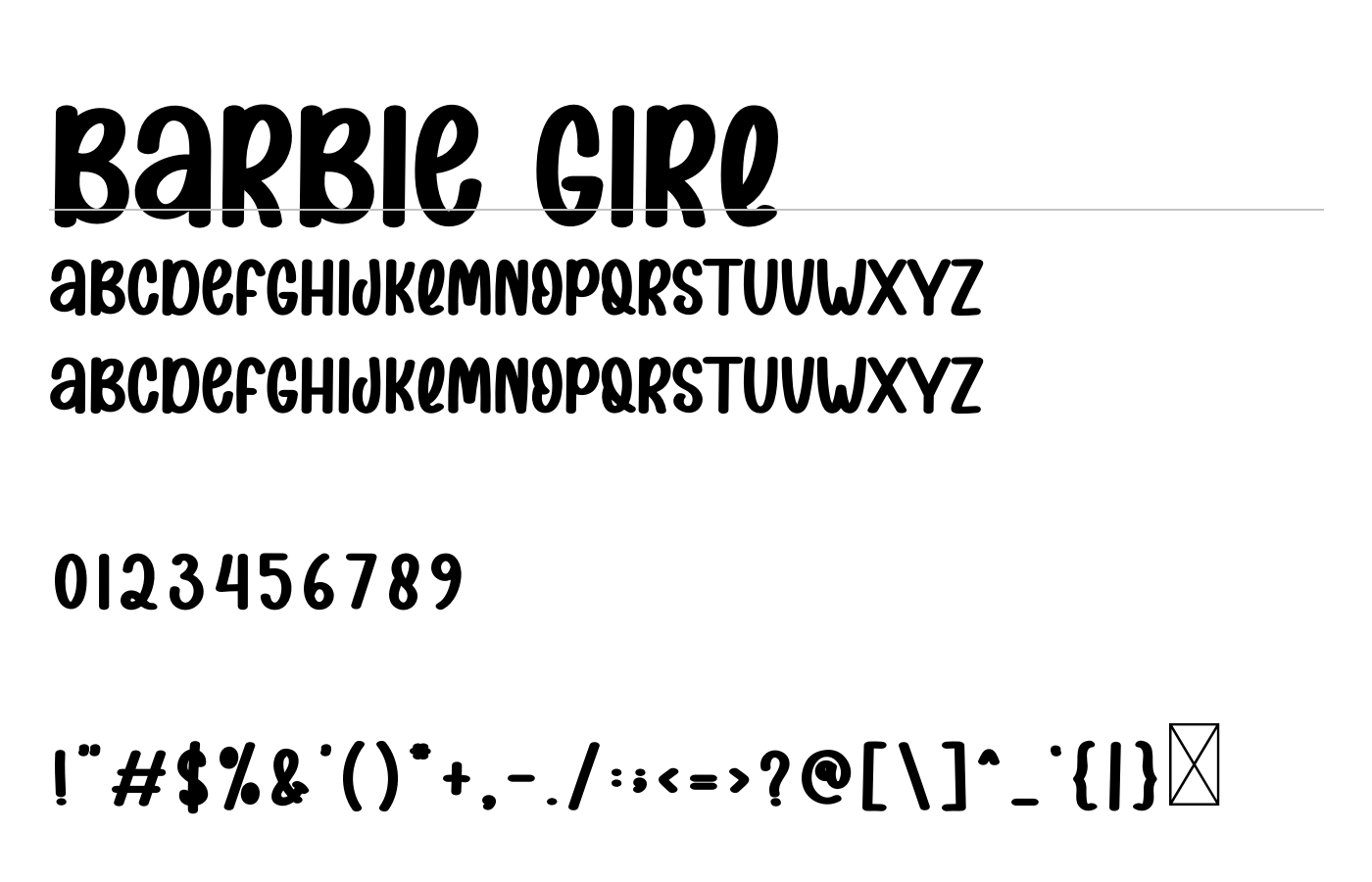
Barbie Girl Font is a playful and casual sans serif typeface with rounded, friendly letterforms and moderate contrast that give it a fun, whimsical character. Its bold weight, slightly condensed width, and unique quirky details make it ideal for youthful, creative branding, children's content, or lighthearted headlines where a warm and approachable personality is desired. This font works best in logos, posters, and packaging that aim to convey charm and cheerfulness in a modern, informal style.
Barbie Girl Font
About Barbie Girl Font